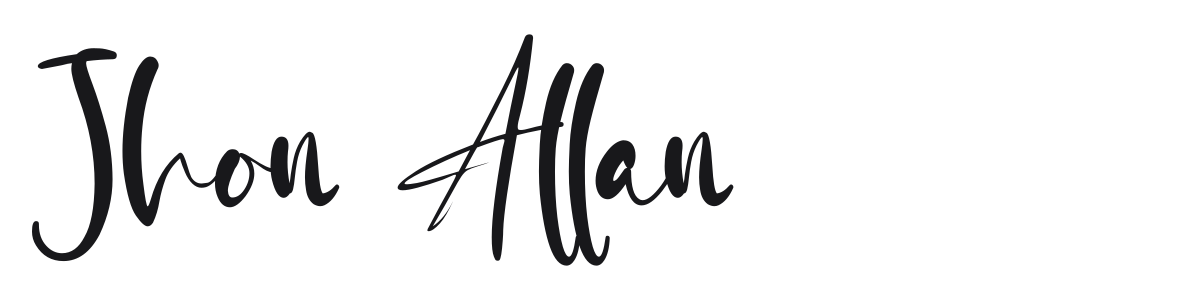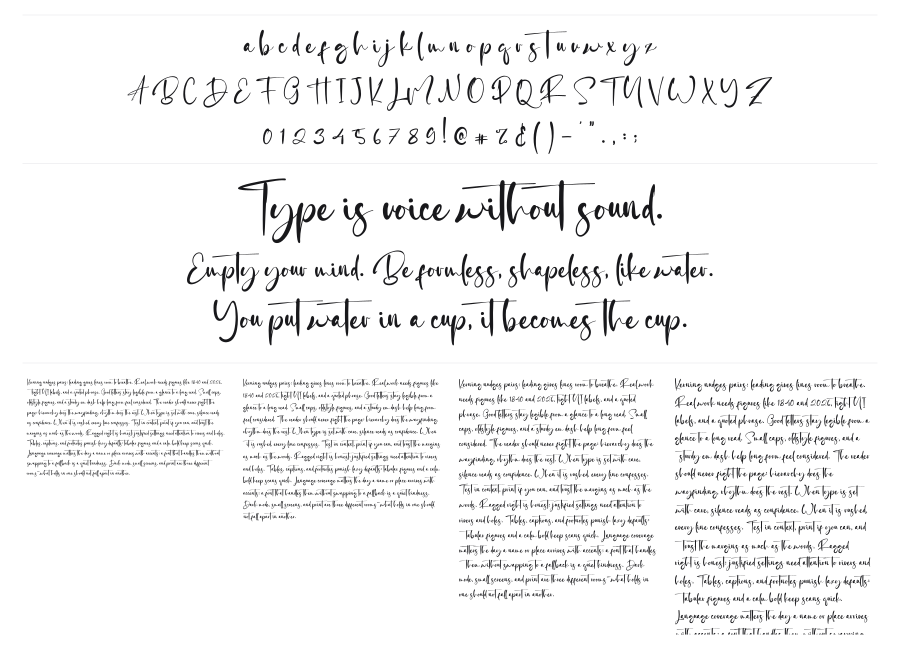
Jhon Allan
Jhon Allan is a lively casual brush script with sweeping ink-like strokes and natural variation in weight. The flowing connections between letters and expressive looping terminals give it an authentic handcrafted feel that reads as both relaxed and refined. It thrives at large sizes in branding, wedding stationery, and packaging where personality is the point.